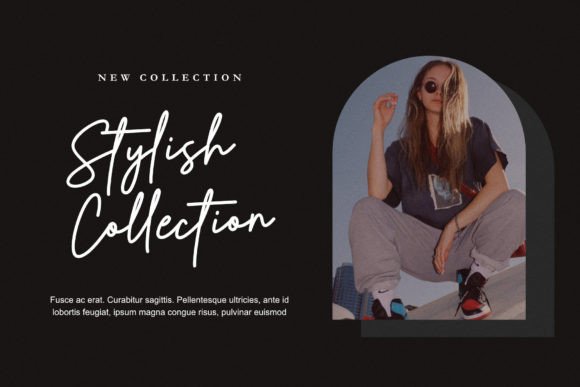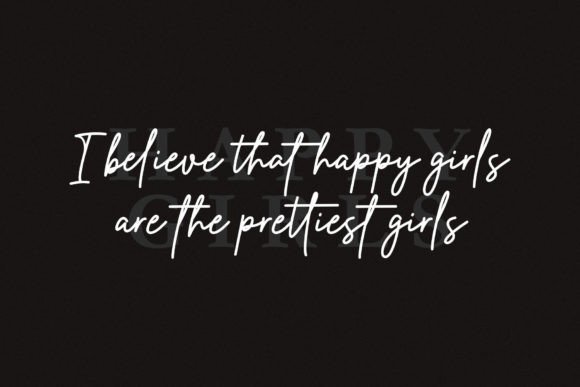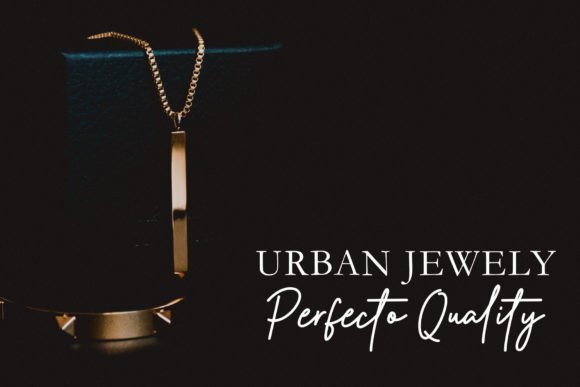
Billie Signature Font
Billie Signature is a stylish and exquisite script font that combines sophistication with a touch of whimsy. It’s flowing curves and elegant letterforms make it ideal for wedding invitations, branding, and editorial projects. This font is designed to make a statement while remaining effortlessly beautiful, making it perfect for any project that requires a touch of refinement.This font is PUA encoded which means you can access all glyphs and swashes effortlessly!